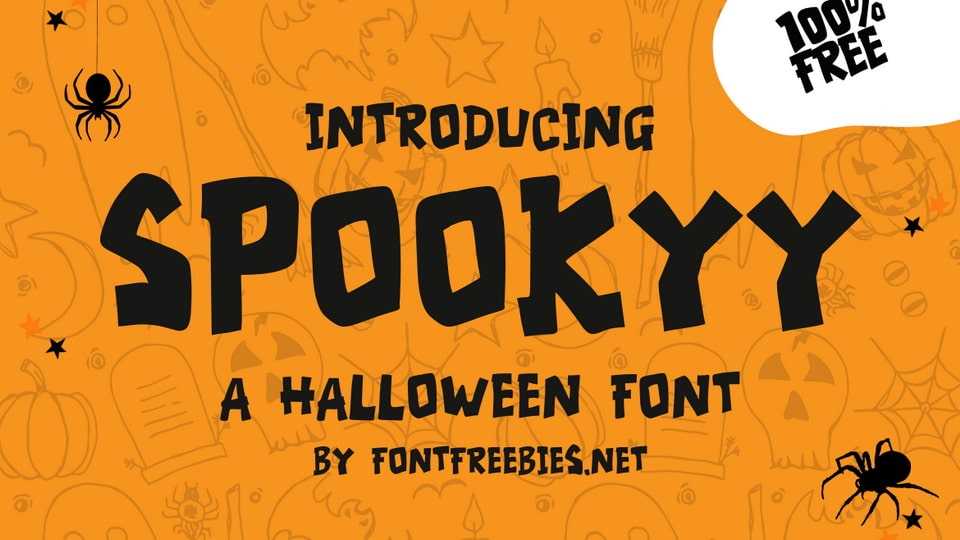
Download Spookyy font, a quirky, playful typeface with a distinct Halloween flair, perfect for projects where you want to capture the essence of spooky fun.